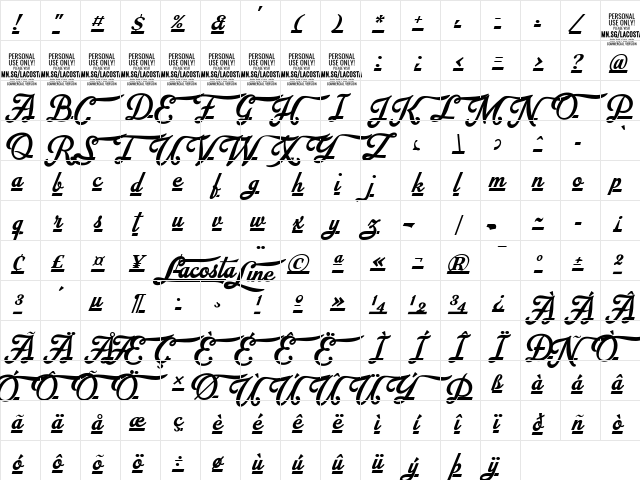
Lacosta Line PERSONAL USE ONLY Regular
| Foundry | Mans Greback |
| Designer | Mans Greback |
Design Context for Lacosta Line PERSONAL USE ONLY Typeface
Lacosta Line PERSONAL USE ONLY is a composed and adaptable typeface that performs quietly and consistently across a wide range of design contexts.